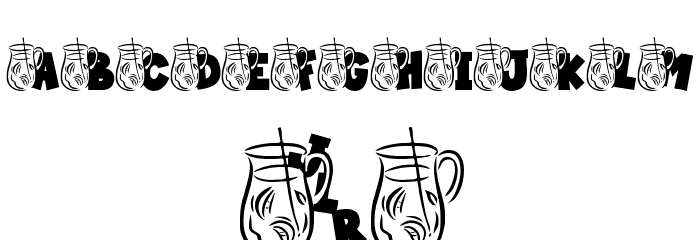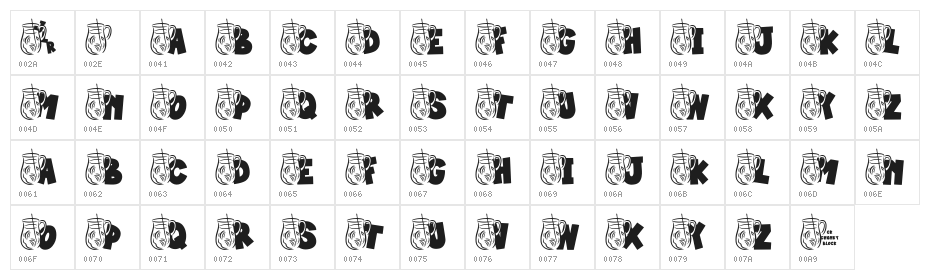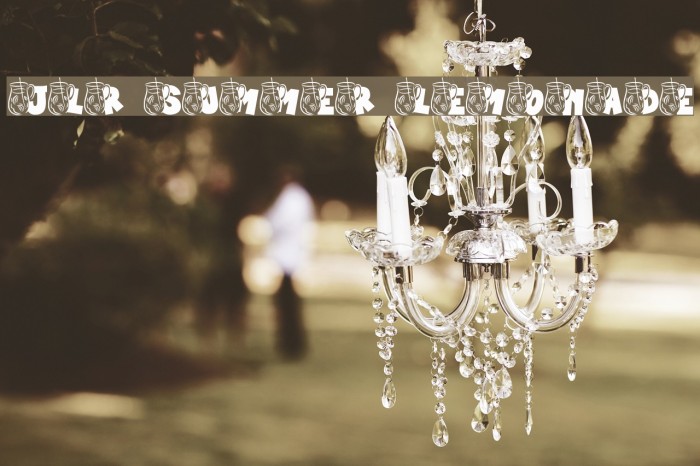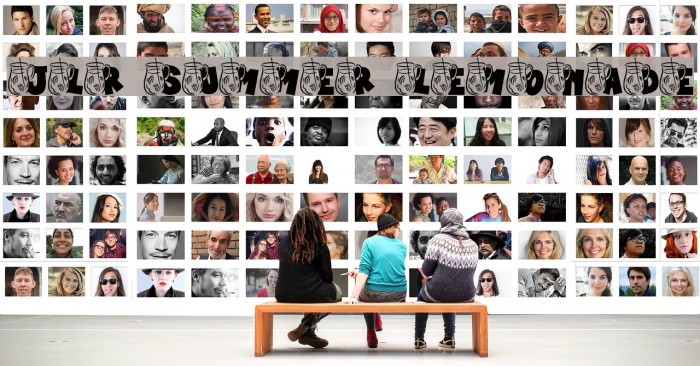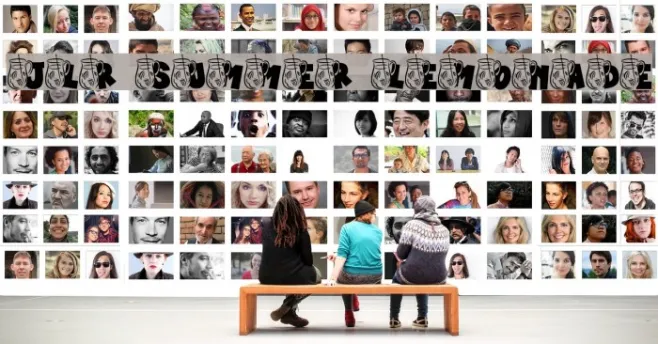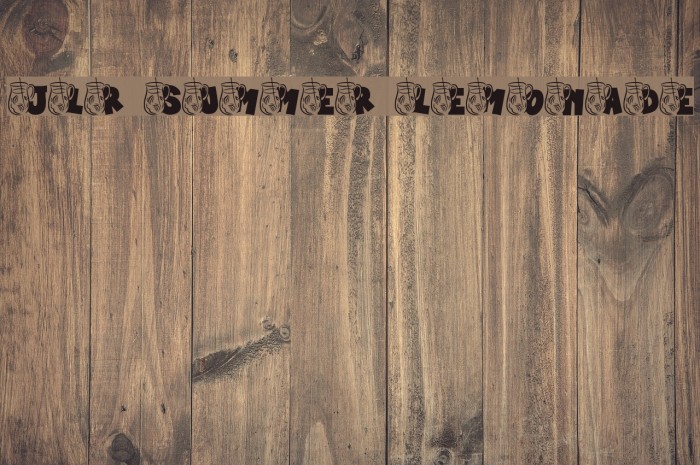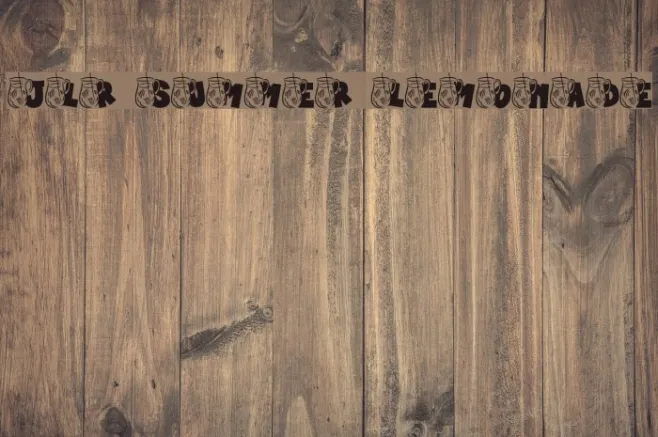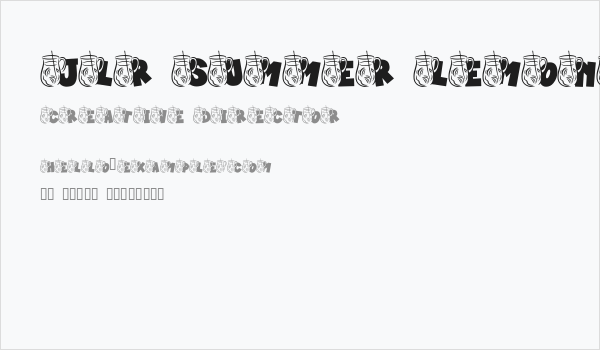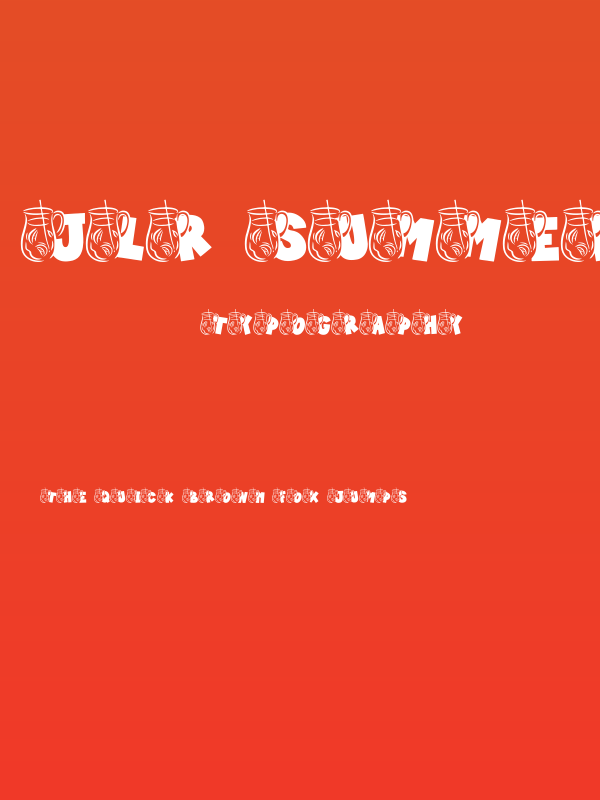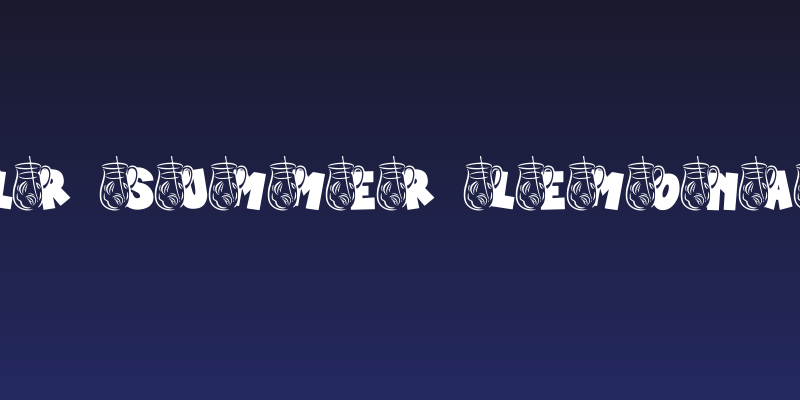
JLR Summer Lemonade Font
JLR Summer Lemonade Description
This playful and vibrant font features a unique design where each character is creatively integrated with a lemonade glass motif. The bold and whimsical style captures a fun, summery vibe, making it ideal for projects that require a lively and engaging aesthetic. The letters are bold and have a decorative flair, with a mix of solid and outlined elements that add depth and interest. The font is perfect for capturing attention and conveying a sense of joy and refreshment, reminiscent of a sunny day with a cool drink in hand.
| Proposed Projects | Ideal for summer event posters, children's party invitations, beverage branding, and playful social media graphics. |